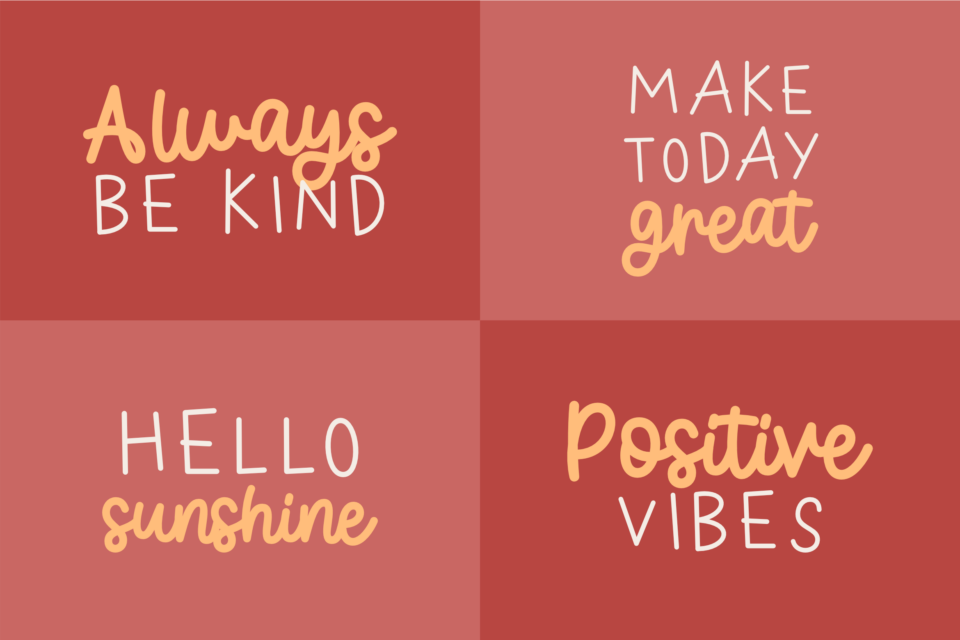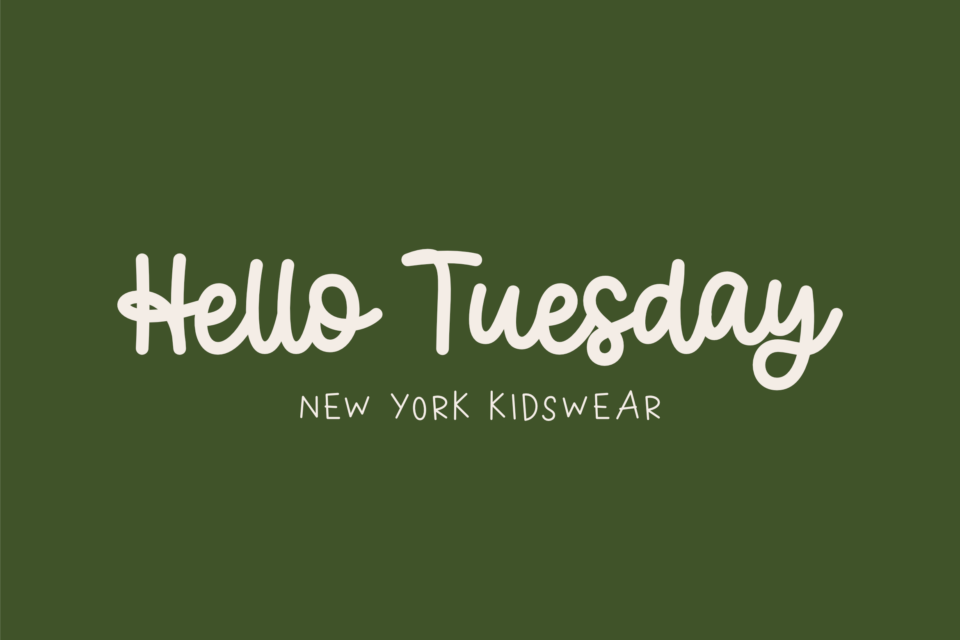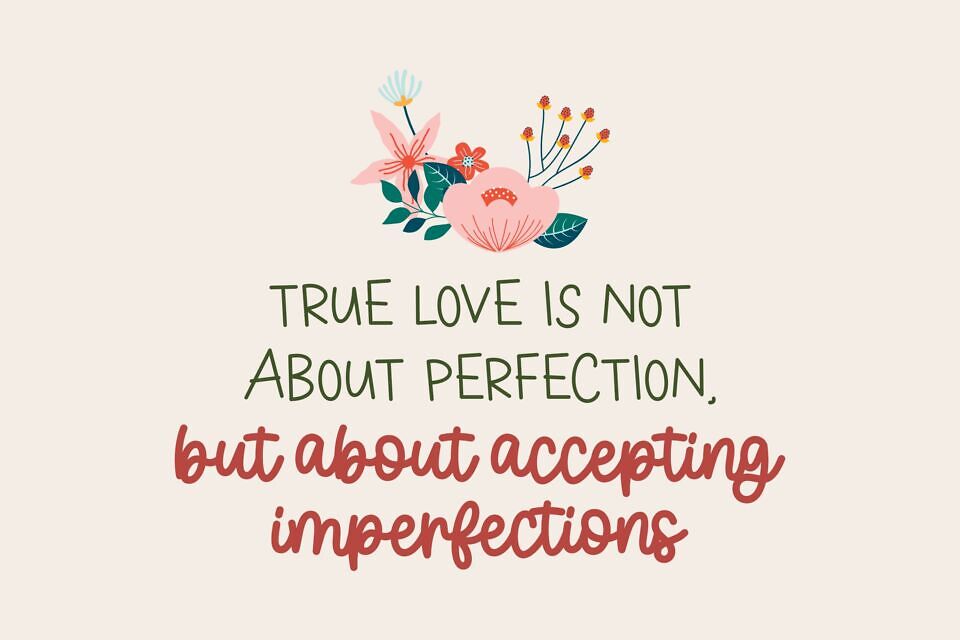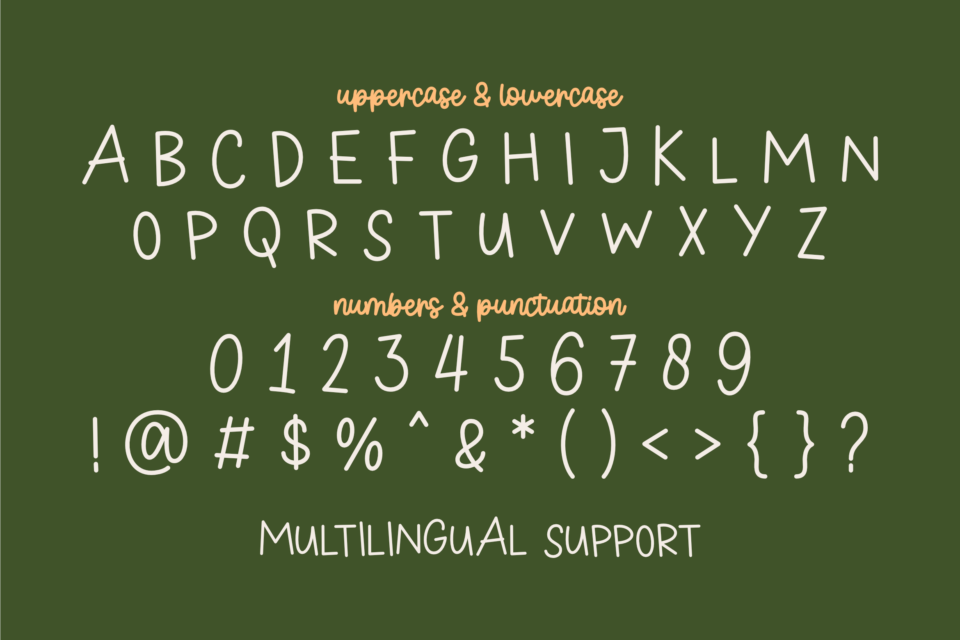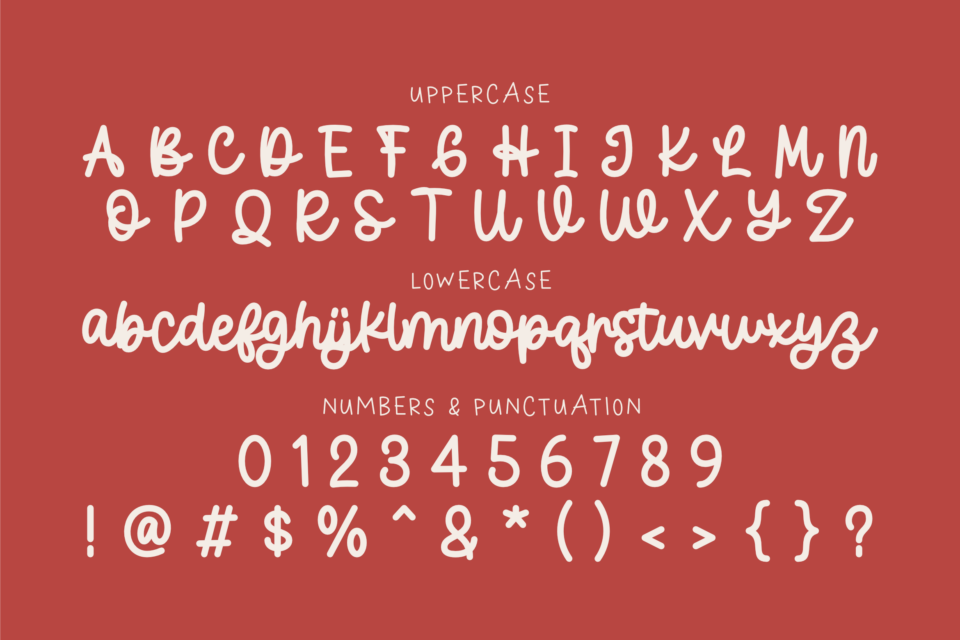
Holiday Bakery is a delightful font duo featuring a playful script and a charming display sans. The script font has a warm, handwritten feel, perfect for festive designs, while the sans font adds a quirky yet clean touch.
This combination is ideal for Christmas-themed projects, bakery branding, greeting cards, packaging, and cozy winter graphics. With its fun and casual style, Holiday Bakery brings a sweet, handcrafted look to any design.